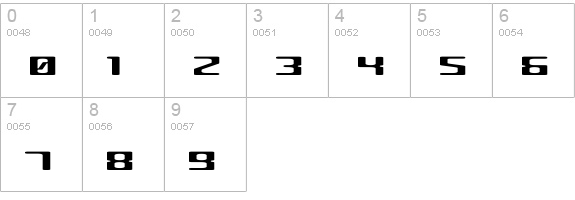
Introducing CriminalWide font, a bold and impactful typeface designed to make a statement in your creative projects. The sleek and modern design of CriminalWide exudes a sense of power and sophistication, making it perfect for headlines, logos, branding, and more. With its wide and commanding letterforms, this font demands attention and leaves a lasting impression. What's even better is that CriminalWide font is available for free download at FontsMarket.com. This means you can easily add this striking font to your font collection without any cost. Don't miss out on the opportunity to enhance your designs with the distinctive style of CriminalWide font. Download it now and take your projects to the next level!